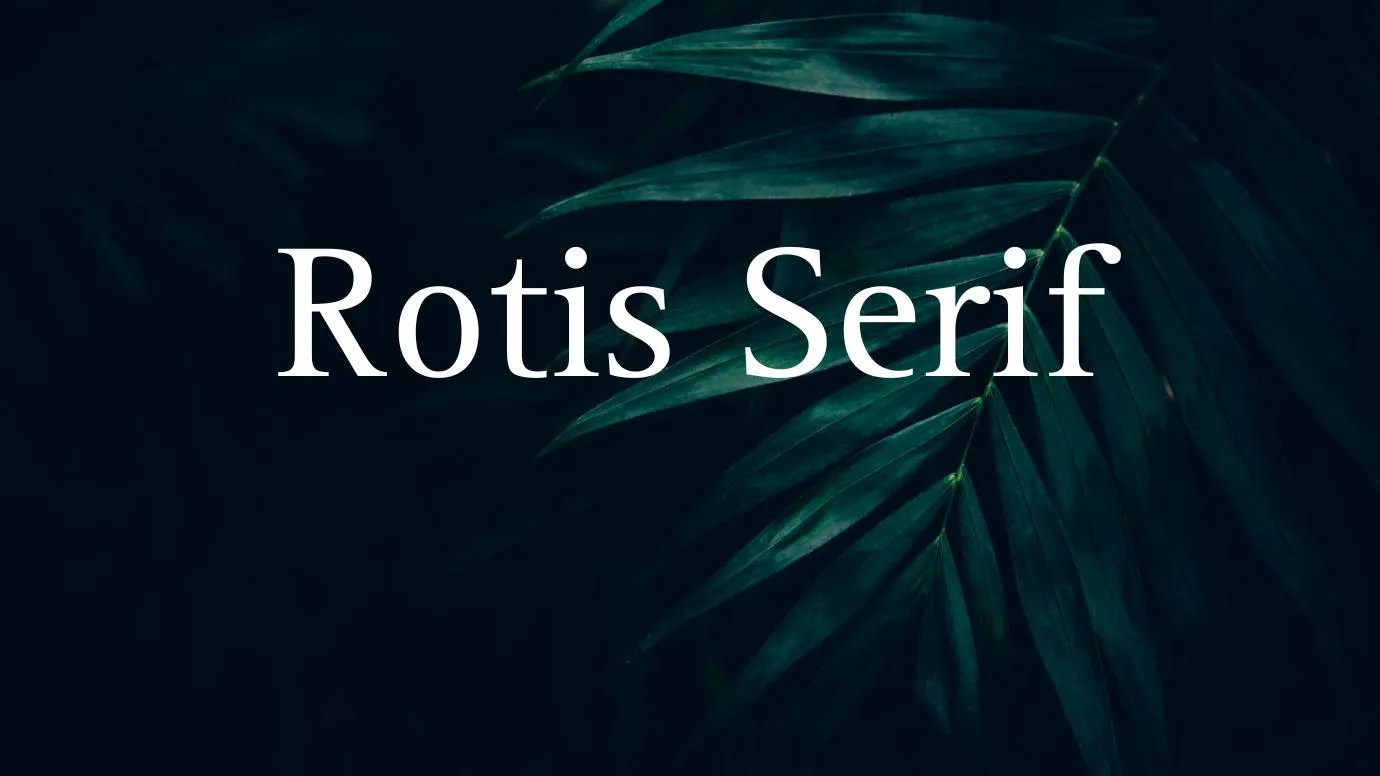
Rotis Serif Font is a clean and modern typeface that is known as Rotis Serif font. It belongs to the serif typeface family and it has a total of marvelous 15 styles and 3 weights including italic, bold and Roman.
NameRotis Serif Font
DesignerOlt Aicher
FoundryMonotype Corporation
StyleSerif
Date Released1991